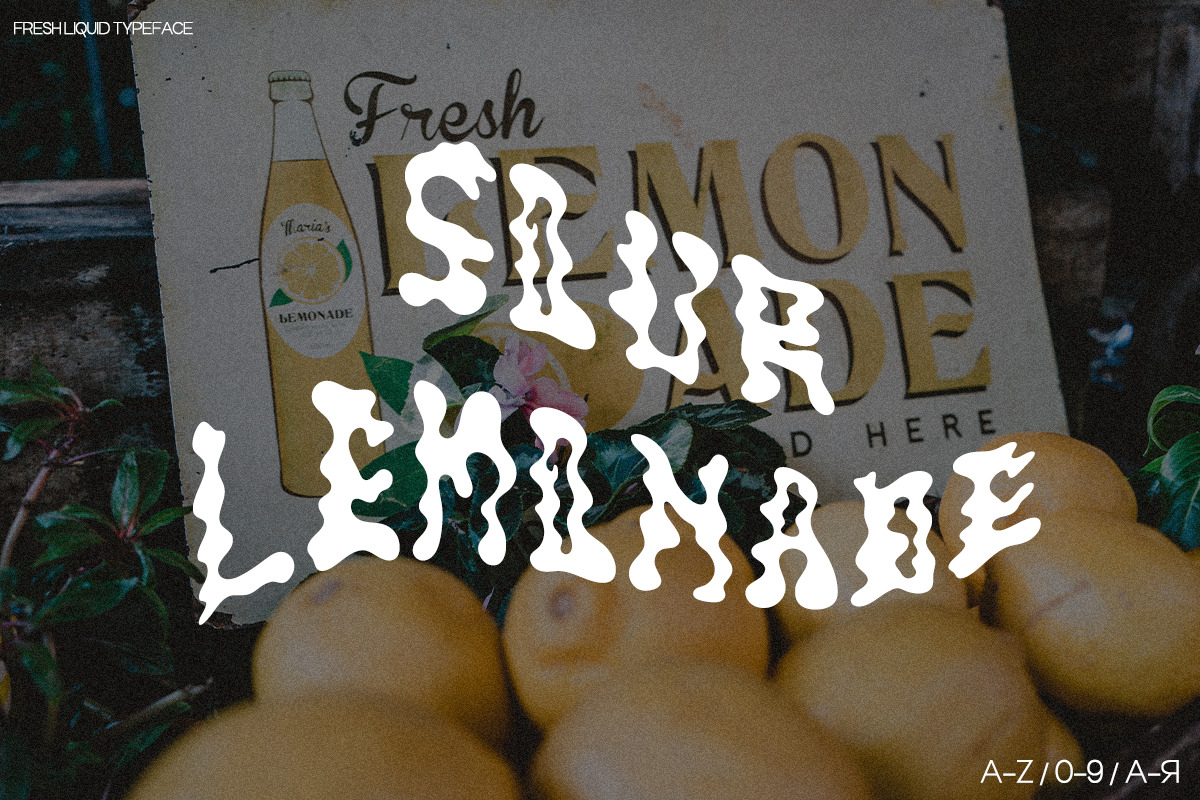
Sour Lemonade - Liquid Typeface
Sour Lemonade comes with Latin and Cyrillic characters, numbers, base punctuation and symbols, so it's perfect for any design project you can dream up! Whether you're creating a poster for a music festival or designing a logo for a juice bar, Sour Lemonade is the font that will make your work stand out.
This font is perfect for those who want to add a touch of summer fun to their designs. Its unique style is sure to catch the eye of your audience and leave a lasting impression. So why not add some zest to your designs with Sour Lemonade?